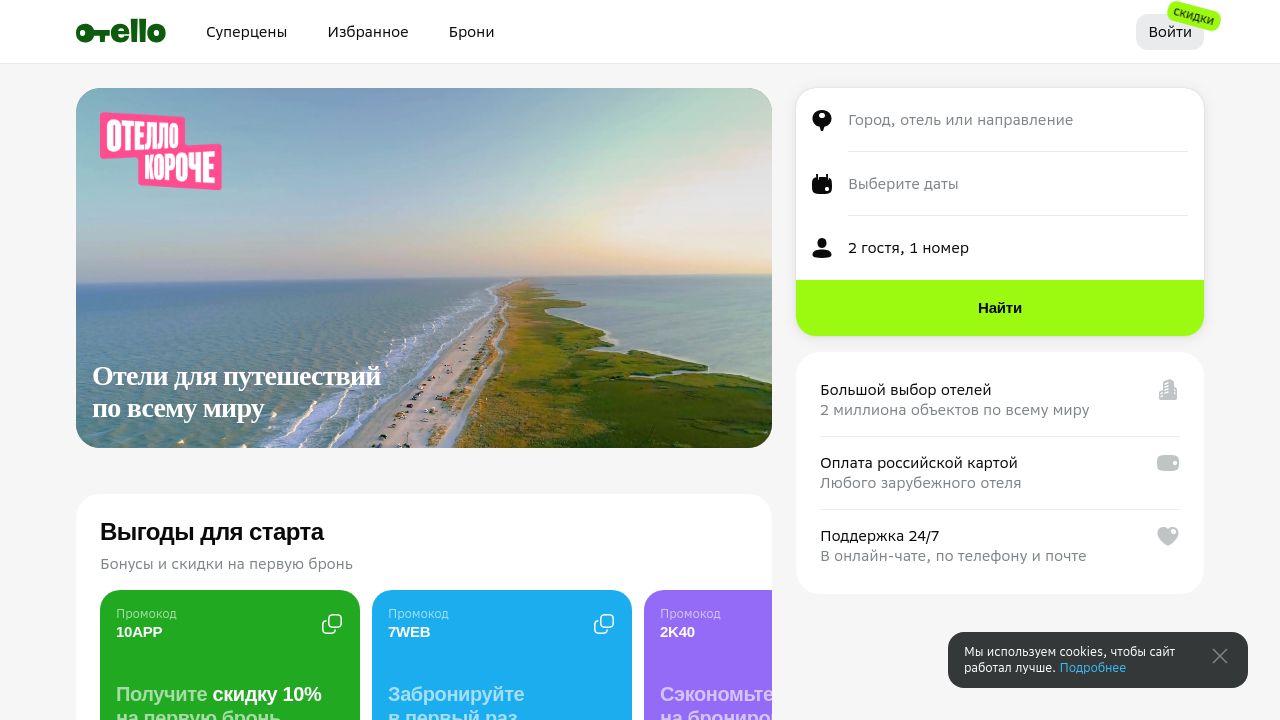
Otello.ru is a prominent hotel booking service that utilizes SBSansText and SBSansDisplay as its primary fonts. These custom typefaces are designed to enhance readability and convey a sense of approachability, which is crucial for attracting travelers looking for accommodations. The choice of these fonts, alongside fallback options like Arial and Helvetica, reflects Otello's commitment to user-friendly design in a competitive digital landscape.
Otello.ru primarily uses SBSansText and SBSansDisplay as its custom fonts, ensuring a distinct visual identity for the website.
SBSansText and SBSansDisplay are designed for optimal readability and user engagement, setting them apart from common alternatives like Arial and Helvetica.
SBSansText is available in a weight of 400, while SBSansDisplay comes in a weight of 600, providing a range of options for different design needs.